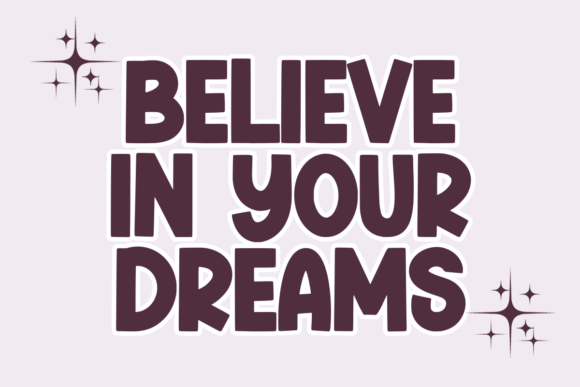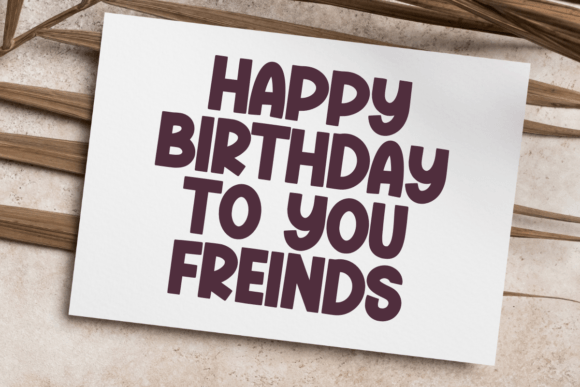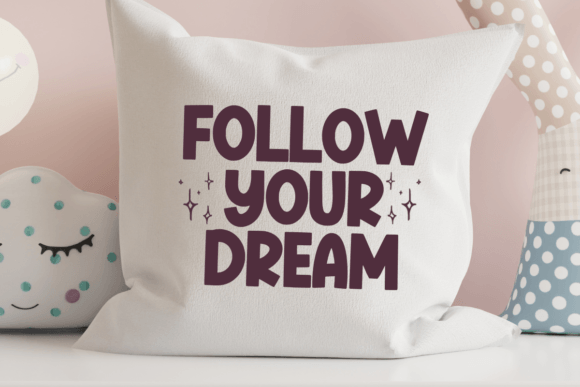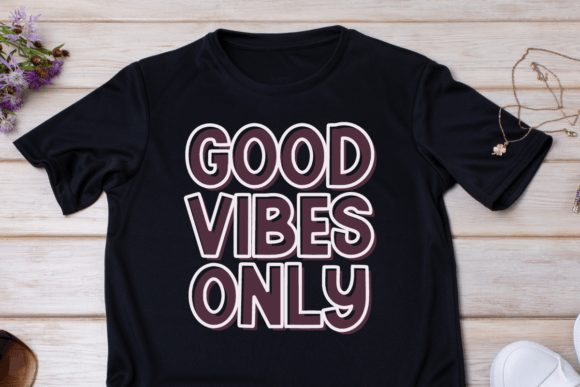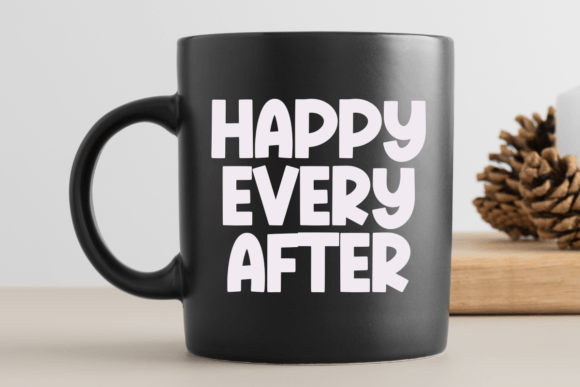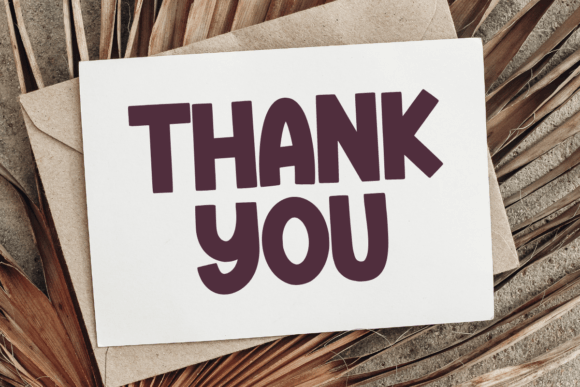
Introduction to Poppy Candy Font
Have you ever stared at a blank page, feeling stuck and uninspired? That’s where a great design resource comes in – a tool that can spark creativity and bring your ideas to life. For designers, finding the perfect font can be a game-changer. And today, we’re excited to introduce you to the delightful Poppy Candy Font, a fun and casual-looking display font that’s sure to add a touch of magic to your next creative project.
Key Features of Poppy Candy Font
- Unique and playful design, perfect for creative projects and design resources.
- Designed to be easily readable and recognizable, even at small font sizes.
- Perfect for adding a touch of whimsy and fun to any design, from logos to graphics and more.
Honest Review: Poppy Candy Font
I recently stumbled upon the Poppy Candy Font, and I have to say it’s been a great addition to my design resources. This font is perfect for any creative project that requires a touch of whimsy and fun.
Here are some of the things that work well with the Poppy Candy Font:
- It’s a high-quality font that’s perfect for digital design projects.
- The transparent background makes it easy to use in any design without worrying about distractions.
- The font is a bit limited in its range of styles, so you may find yourself wanting more options.
- Some of the characters may not be as well-formed as you’d like.
- The font may not be as versatile as some other fonts I’ve worked with.
Overall, I’m really happy with the Poppy Candy Font. While it’s not perfect, it’s a great addition to my design resources and I’ve enjoyed using it in a few recent projects. If you’re looking for a fun and playful font for your creative project, I’d definitely recommend giving it a try!
The Poppy Candy Font is perfect for creative projects that require a playful and whimsical touch. Use it in invitations, social media graphics, or marketing materials to add a pop of color and personality. The font’s high-quality design makes it ideal for both digital and print projects.
To get the most out of the Poppy Candy Font, experiment with different font sizes, colors, and combinations. You can also pair it with other fonts to create a unique and eye-catching design. Don’t be afraid to try new things and push the boundaries of creative expression.
Yes, the Poppy Candy Font is designed to work seamlessly with transparent backgrounds, making it ideal for creative projects that require a clean and minimalist look.
Yes, the Poppy Candy Font is a high-quality design resource that meets professional standards. Its crisp and clear typography makes it perfect for use in various creative projects, from logos and branding to editorial and advertising materials.